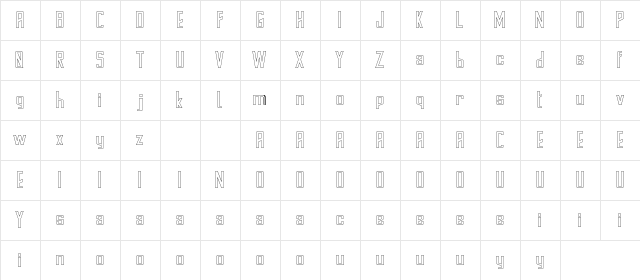
Stanwick Demo Outline Regular
Design Context for Stanwick Demo Outline Typeface
Stanwick Demo Outline is built around its visual character rather than neutral utility — its distinctive forms are designed to make an impression at display sizes.
Font Pairing: Pair with a clean neutral sans-serif for body copy to let Stanwick Demo Outline's character lead without overwhelming the composition.
Pro Tip: Use Stanwick Demo Outline exclusively at display sizes — it was designed to be seen, not read at length. Let a neutral companion handle body copy.